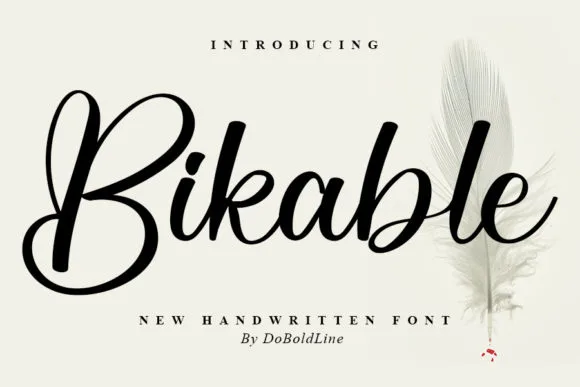
Bikable Font
About Bikable Font
“Bikable” is a stylish handwritten font that exudes a contemporary atmosphere while embracing the impeccable forms inspired by timeless classic calligraphy. This font, designed with balance and variety in mind, aims to elevate the beauty of your projects, offering a harmonious blend of modern aesthetics and classic elegance.
The contemporary atmosphere of “Bikable” is reflected in its stylish and up-to-date design. The font captures the essence of current trends while maintaining a timeless quality, making it a versatile choice for projects that seek a balance between modernity and enduring elegance.
The impeccable form of “Bikable” draws inspiration from classic calligraphy, infusing the font with a sense of sophistication and artistry. Each stroke is carefully crafted to enhance the overall aesthetic, contributing to a design that is both refined and visually appealing.
The balance and variety inherent in “Bikable” make it a versatile tool for enhancing the beauty of your projects. The font’s thoughtful design allows it to adapt seamlessly to different contexts, from branding materials and logos to invitations, posters, and more.
Whether applied to digital or print media, “Bikable” brings a touch of contemporary elegance to your designs. Its handwritten style adds a personal and authentic feel, making it suitable for projects where a sense of individuality and craftsmanship is desired.
In summary, “Bikable” is a stylish handwritten font that marries contemporary aesthetics with the timeless appeal of classic calligraphy. Its impeccable form, balanced design, and varied elements make it a valuable asset for enhancing the beauty of a diverse range of projects. Let “Bikable” be the font that elevates your designs, capturing the perfect blend of modern sophistication and enduring elegance.